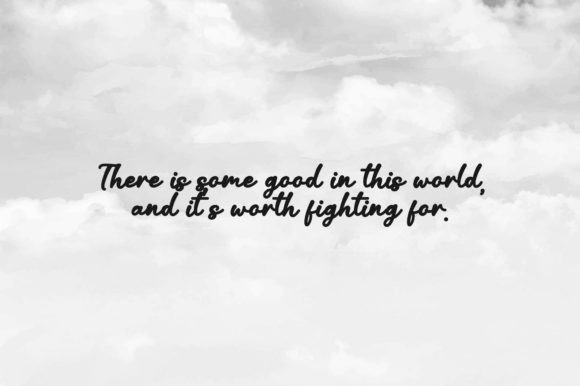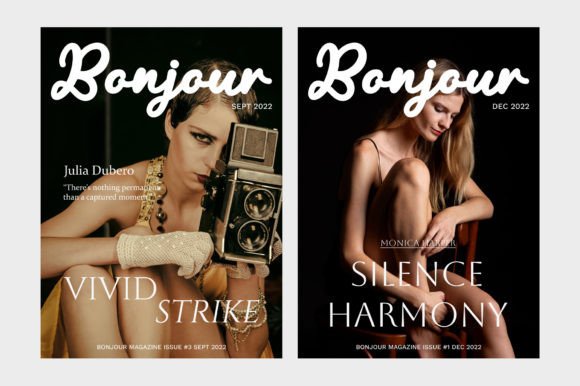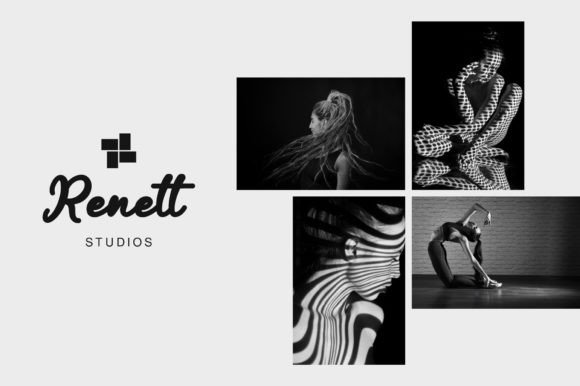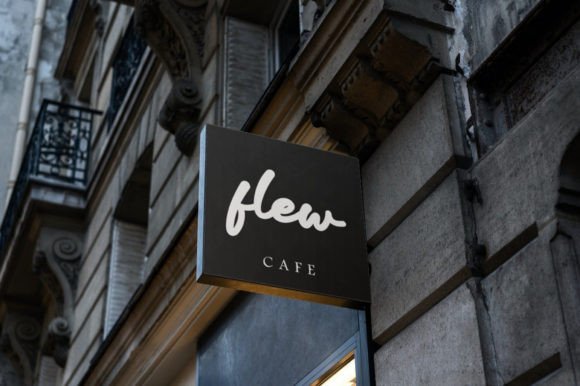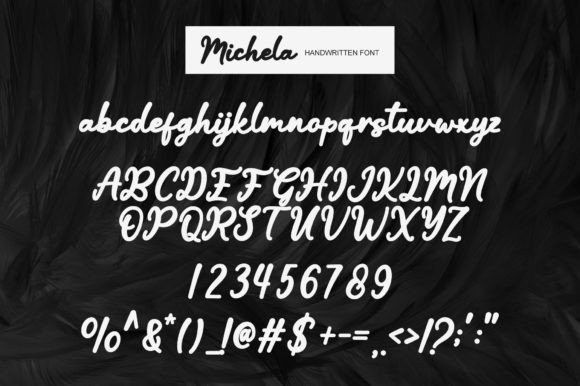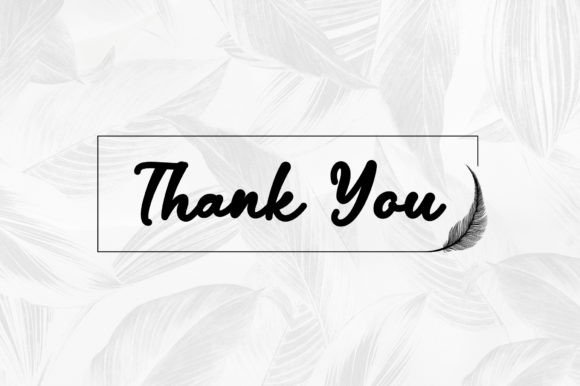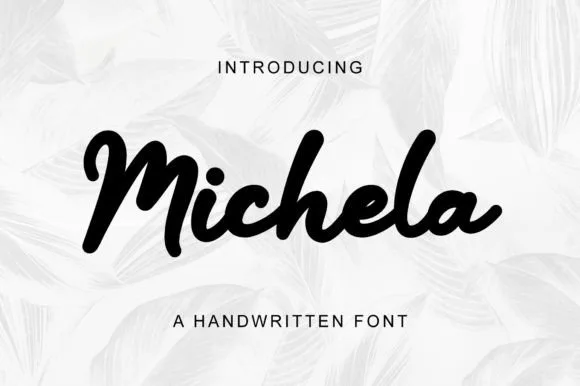
Michela Font
About Michela Font
“Michela” is a lovely and timeless handwritten font that stands out as an excellent choice for creating eye-catching logos, branding materials, and impactful quotes. This font’s appeal lies in its classic yet versatile design, making it a valuable asset for various design applications.
One of the standout features of “Michela” is its ability to convey a sense of charm and timelessness. The handwritten style of the font adds a personal and authentic feel to your text, making it an ideal choice for projects that aim to evoke a sense of elegance and beauty.
“Michela” excels in creating visually appealing logos that leave a lasting impression. Its versatility also extends to branding materials, where it can help establish a cohesive and visually appealing brand identity. Additionally, the font can enhance the impact of quotes and phrases, making them more memorable and captivating.
Visualize using “Michela” for your logo design, and notice how it imparts a touch of elegance and timelessness to your brand’s image. Picture incorporating this font into your branding materials, creating a consistent and visually appealing identity for your business or project. When you choose “Michela” for your creative endeavors, you’re opting for a font that elevates them, making them more memorable and captivating.
In conclusion, “Michela” is more than just a font; it’s a design asset that brings timeless elegance to your creative projects. Its handwritten style and classic design make it an ideal choice for creating eye-catching logos, branding materials, and impactful quotes that resonate with your audience and leave a lasting impression.